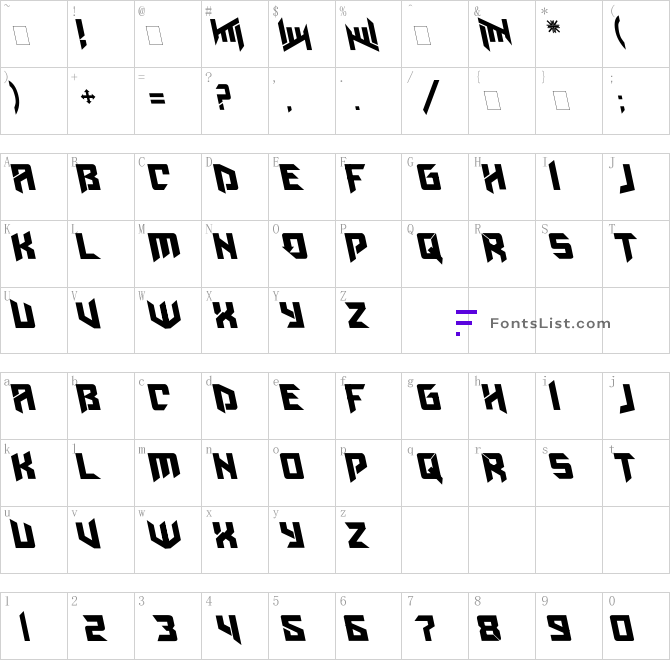
- Font Name:AmazObitaemOstrovLeftalic
AmazObitaemOstrovLeftalic.ttf is a very beautiful artistic font, AmazObitaemOstrovLeftalic.ttf is widely used in the design and printing of various books and pictures,AmazObitaemOstrovLeftalic.ttf has a strong visual impact,AmazObitaemOstrovLeftalic.ttf is a commonly used font in newspapers, magazines and books, and is used in posters, e-commerce Poster design, store design, logo design, font design and other fields.AmazObitaemOstrovLeftalic.